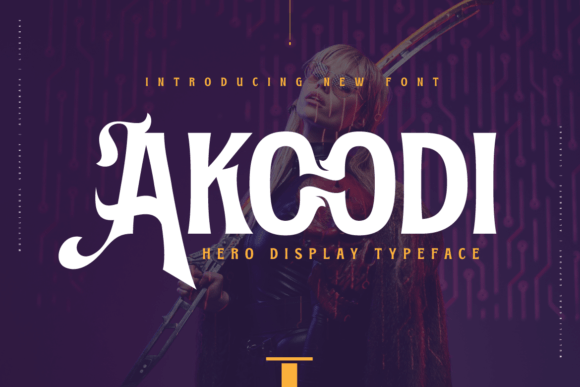
Strap yourself in for the most thrilling typographical adventure with Akoodi Font, the superhero of display fonts! Akoodi's bold and stylish demeanor will capture your audience's attention like a bolt of lightning, leaving them spellbound by its captivating presence. Unleash your creativity and craft eye-catching titles and headlines that leap off the screen, demanding attention like a superhero saving the day.
With its strong, prominent, and one-of-a-kind character design, Akoodi is not just a font; it's a versatile force to be reckoned with. Dive into a world of limitless possibilities, from branding and marketing materials that pack a punch to book covers and packaging designs that command attention. Akoodi is your secret weapon to make your designs stand out from the crowd, leaving a lasting impression that echoes through the realms of creativity.
But that's not all! Akoodi is PUA encoded, granting you the power to effortlessly access a universe of glyphs and swashes, empowering you to weave intricate designs and unleash your imagination. Let your creativity soar as you effortlessly add flourishes and embellishments that elevate your designs to new heights. Akoodi is your gateway to a world of typographical freedom, where your artistic vision knows no bounds.
So, step into the spotlight with Akoodi Font, the ultimate hero of display fonts. Transform your designs into captivating masterpieces that command attention and leave your audience in awe. Experience the thrill of creating with Akoodi and unlock the superhero within your designs. Embrace the power of bold typography and let your creativity take flight!